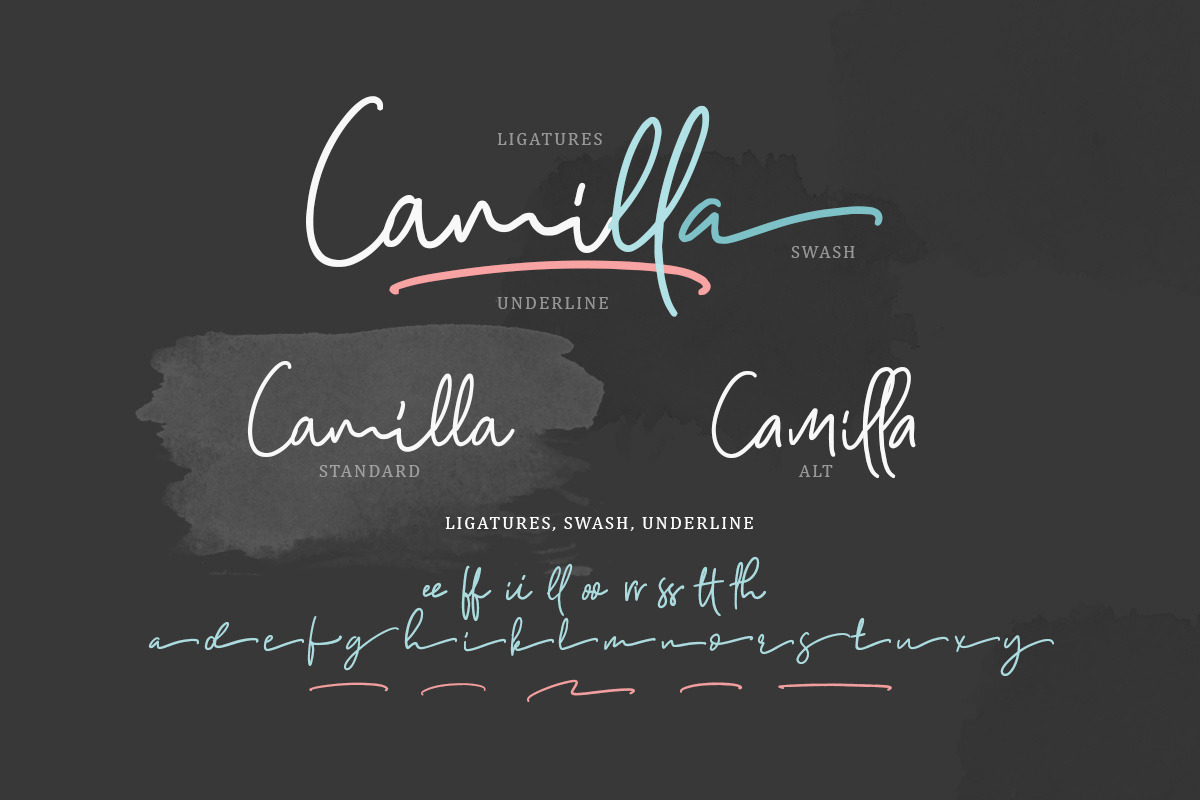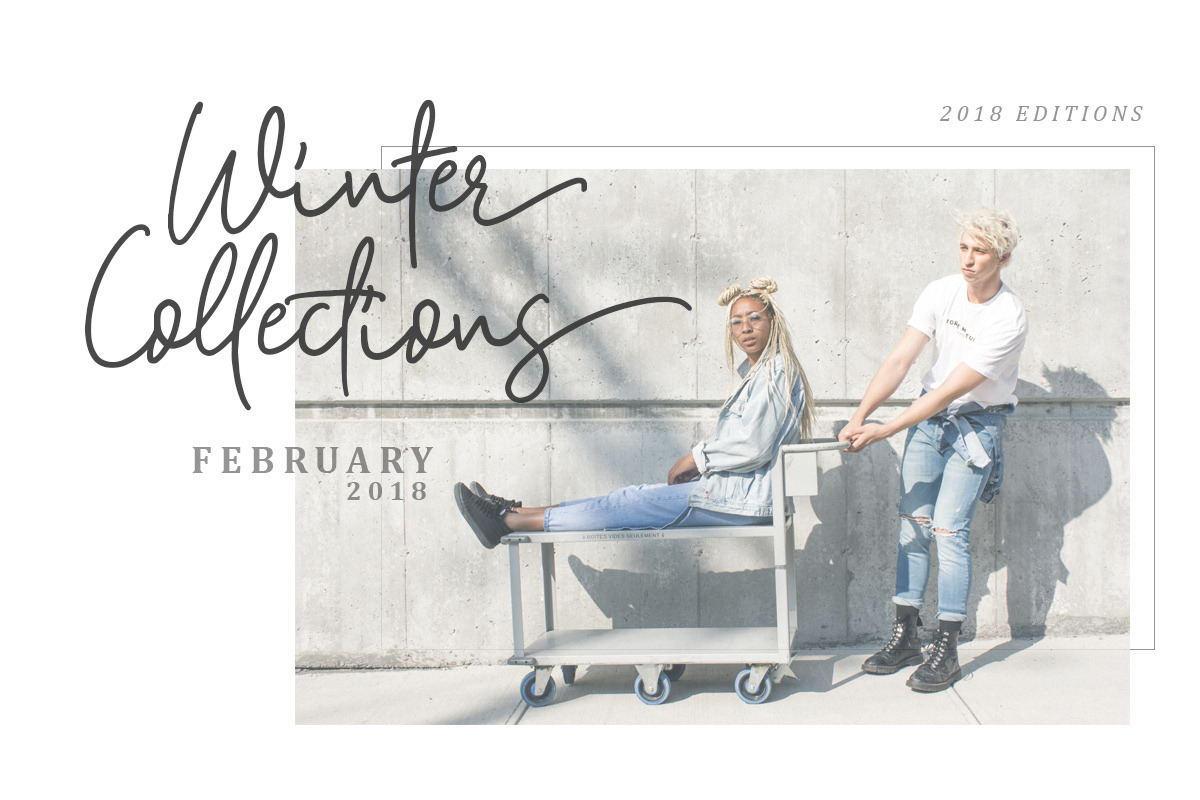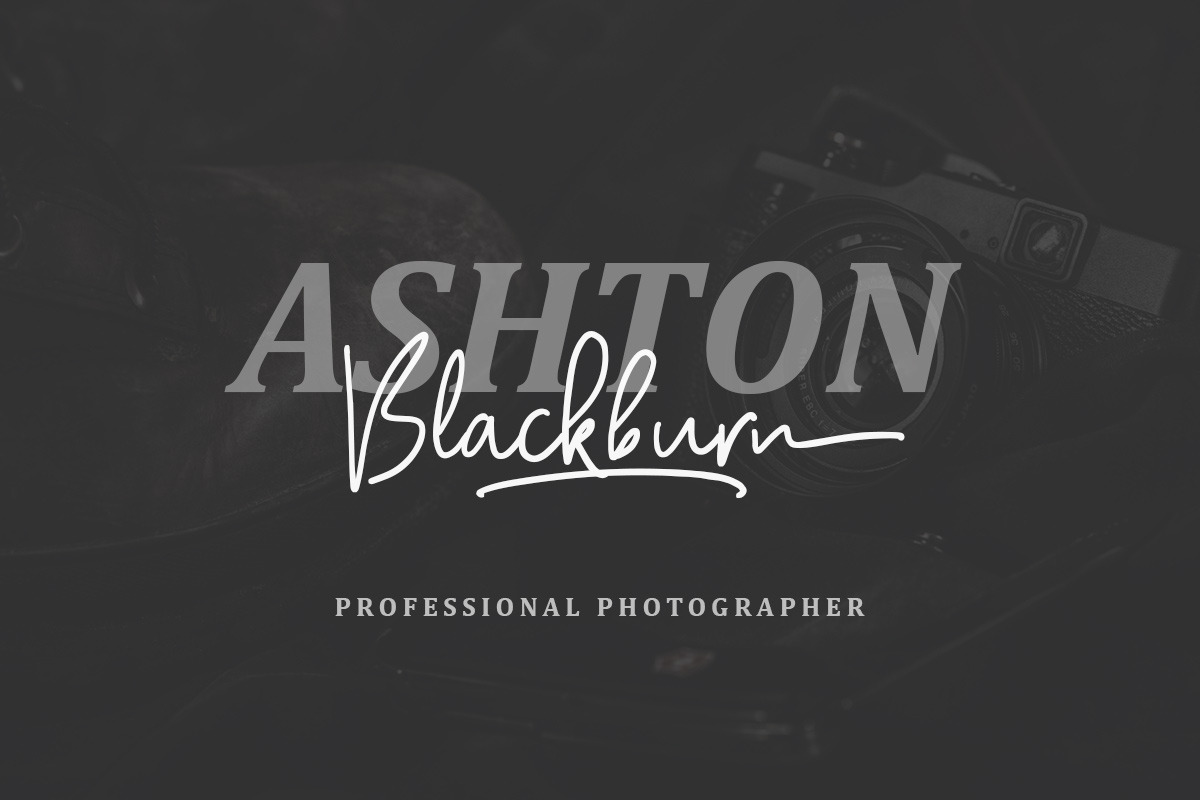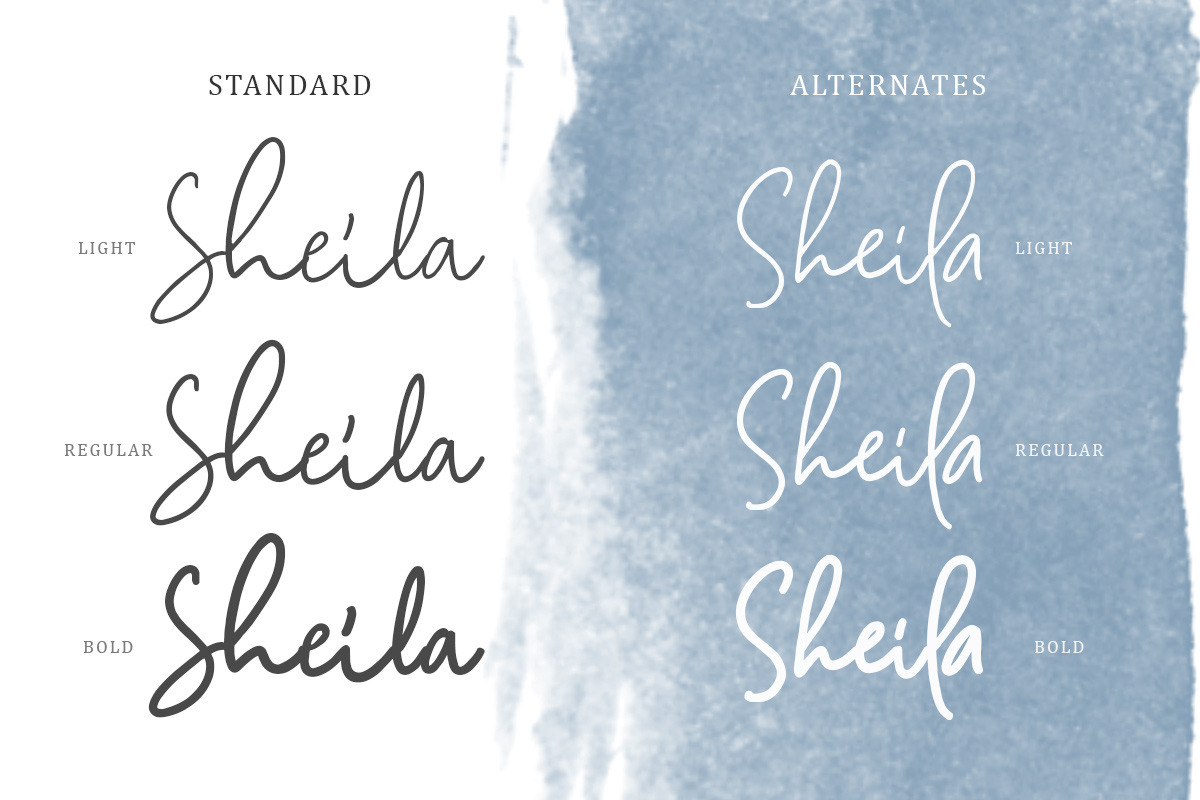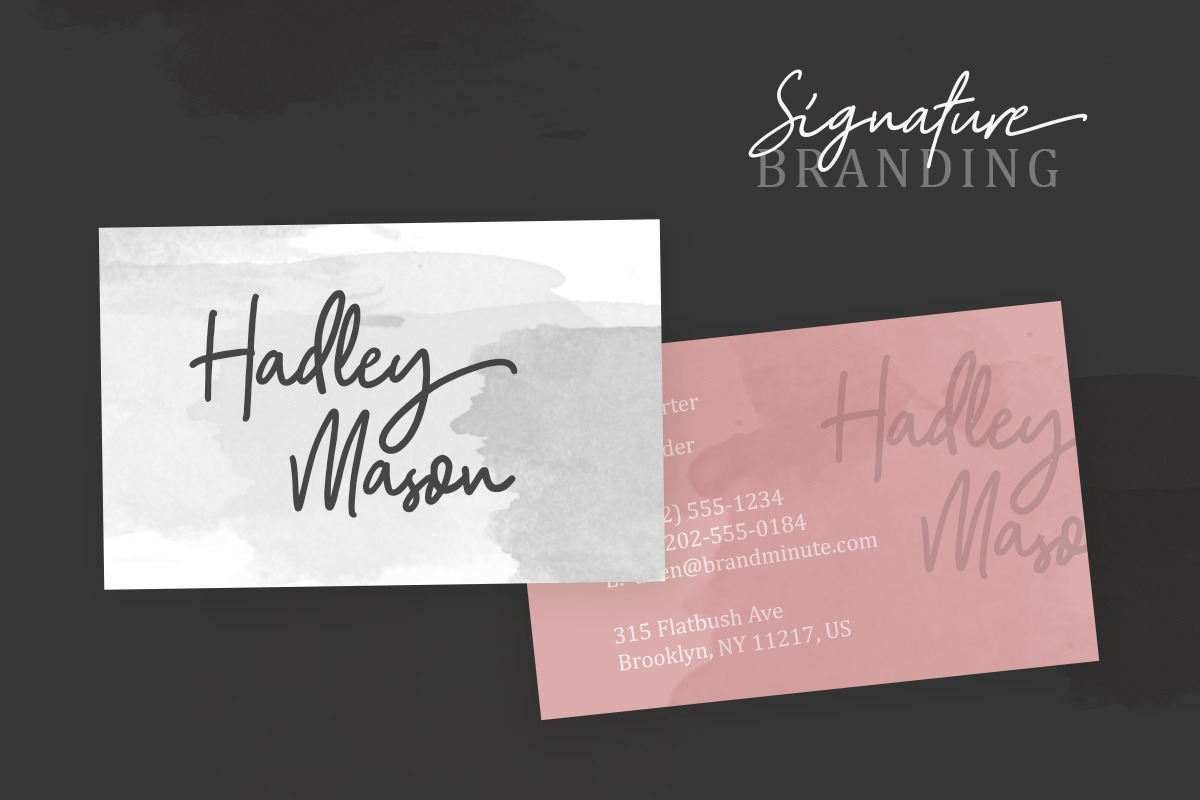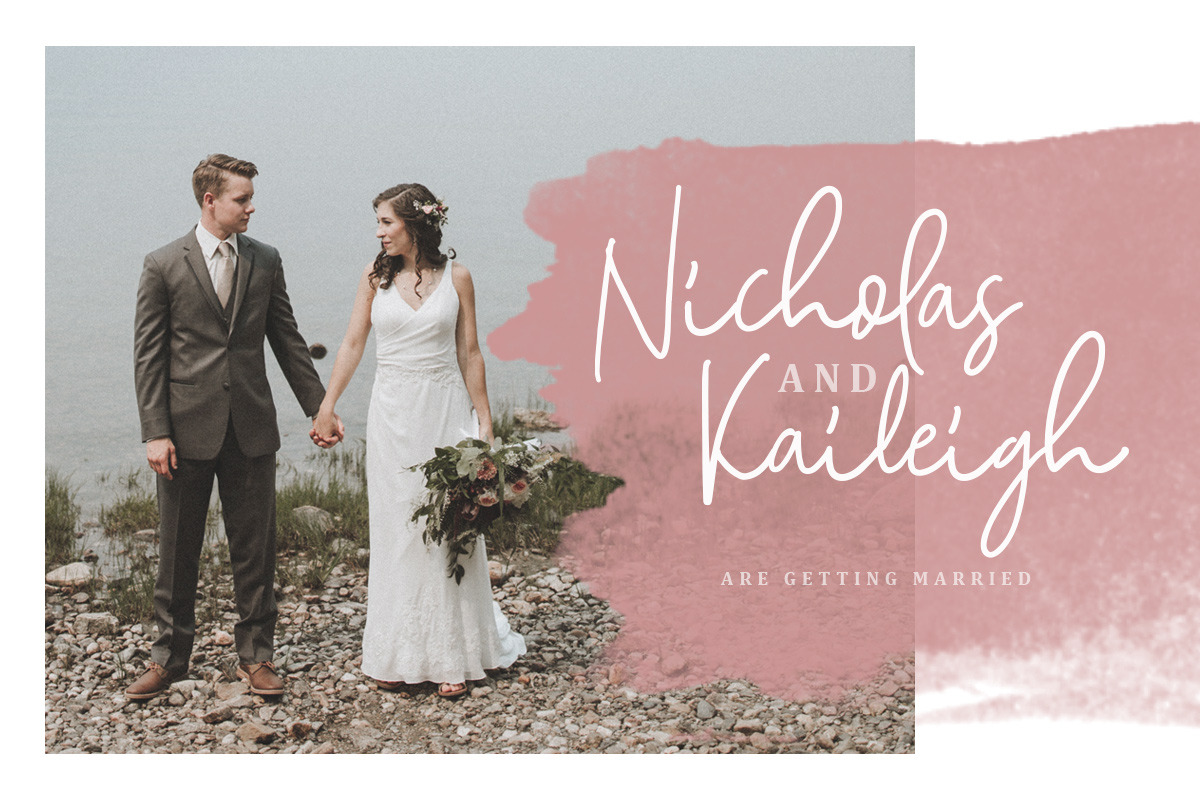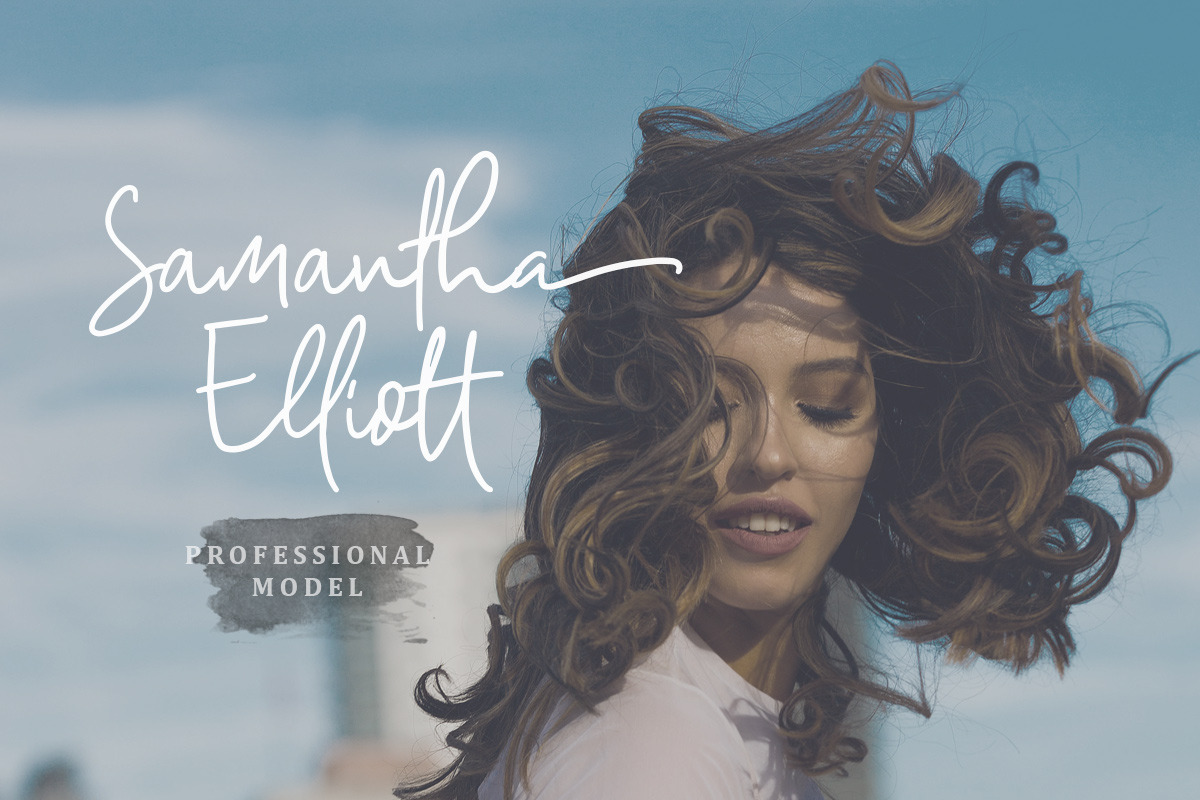
Camilla - Signature Script (6 Fonts)
Introducing, Camilla Script Family, the newest way to make a signature!
Camilla Script Family contain 6 FONTS including alternates, Ligatures, Swash, and also Underline. Camilla is a signature font that you can use to make a logo for branding, beautiful fashion design, or handwritten quote. Also already PUA Encoded.
- Camilla Script Family contain 6 FONTS including alternates, Ligatures, Swash, and also Underline.